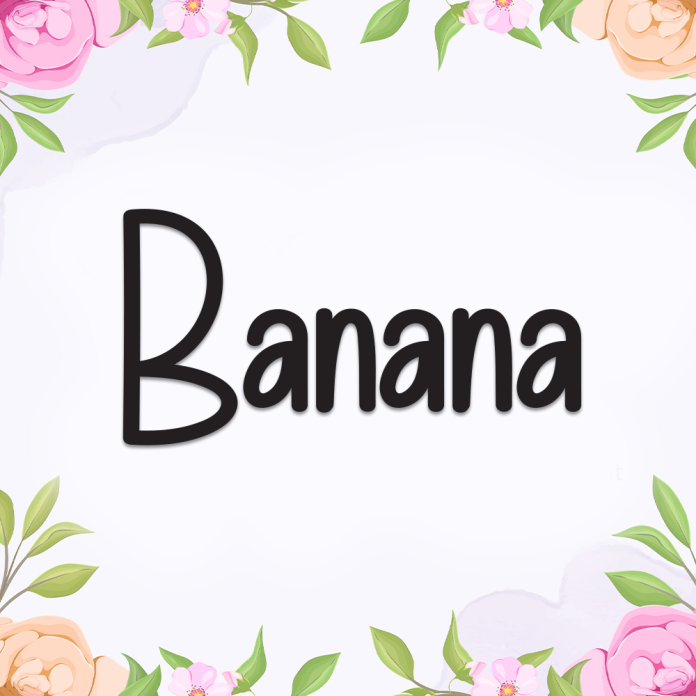
Banana is a fun and energetic display font that bursts with personality! With its bold curves and bouncy character, this font brings a cheerful, summery feeling to any design — just like biting into a sweet, ripe banana on a sunny day.
Perfect for kids’ projects, playful branding, product packaging, or summer-themed graphics, Banana grabs attention and spreads positivity with every letter.
Bold and bubbly tropical display style
Great for posters, product labels, and social media
Bring fruity fun and sunshine into your designs with the vibrant spirit of Banana!